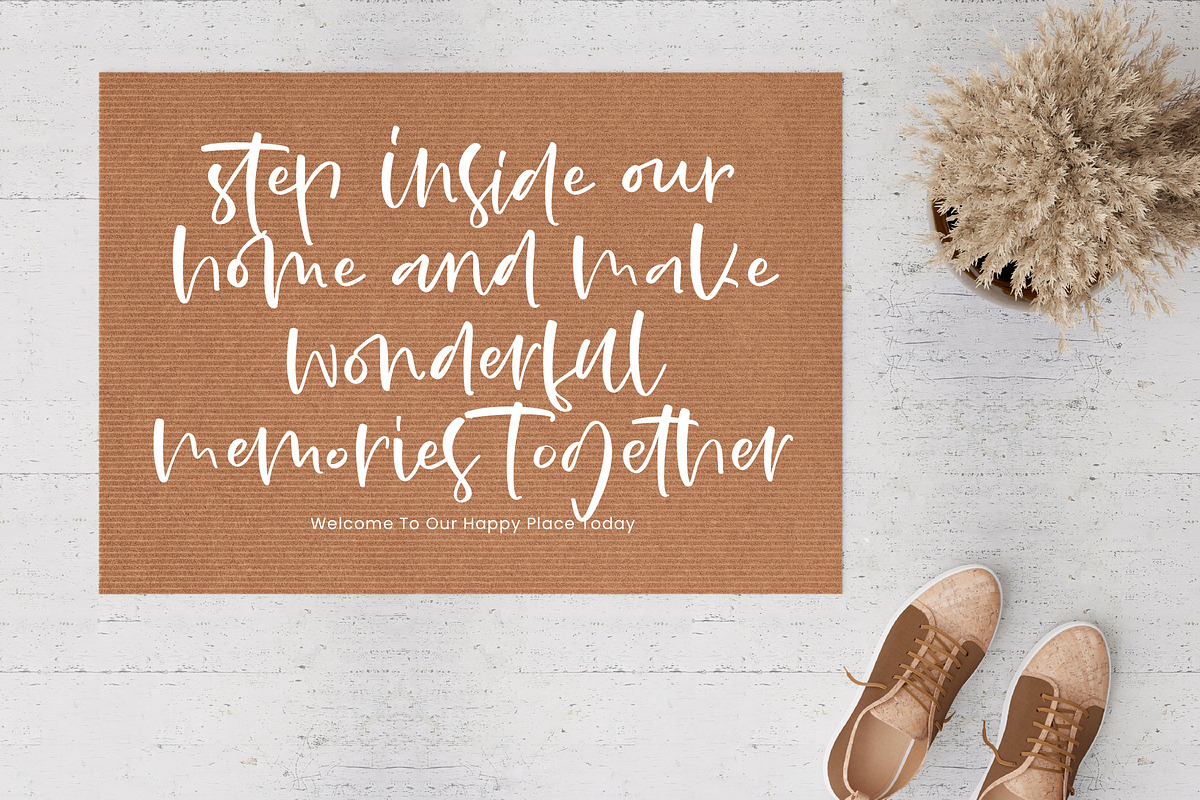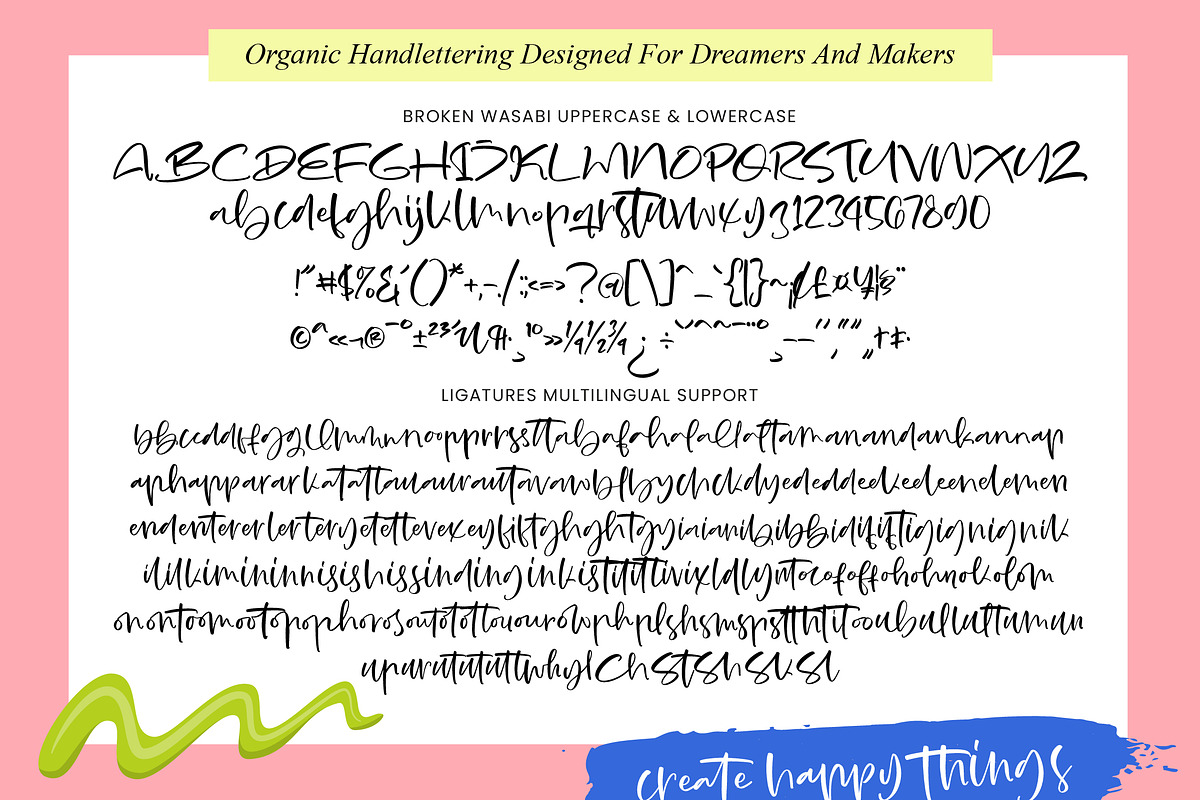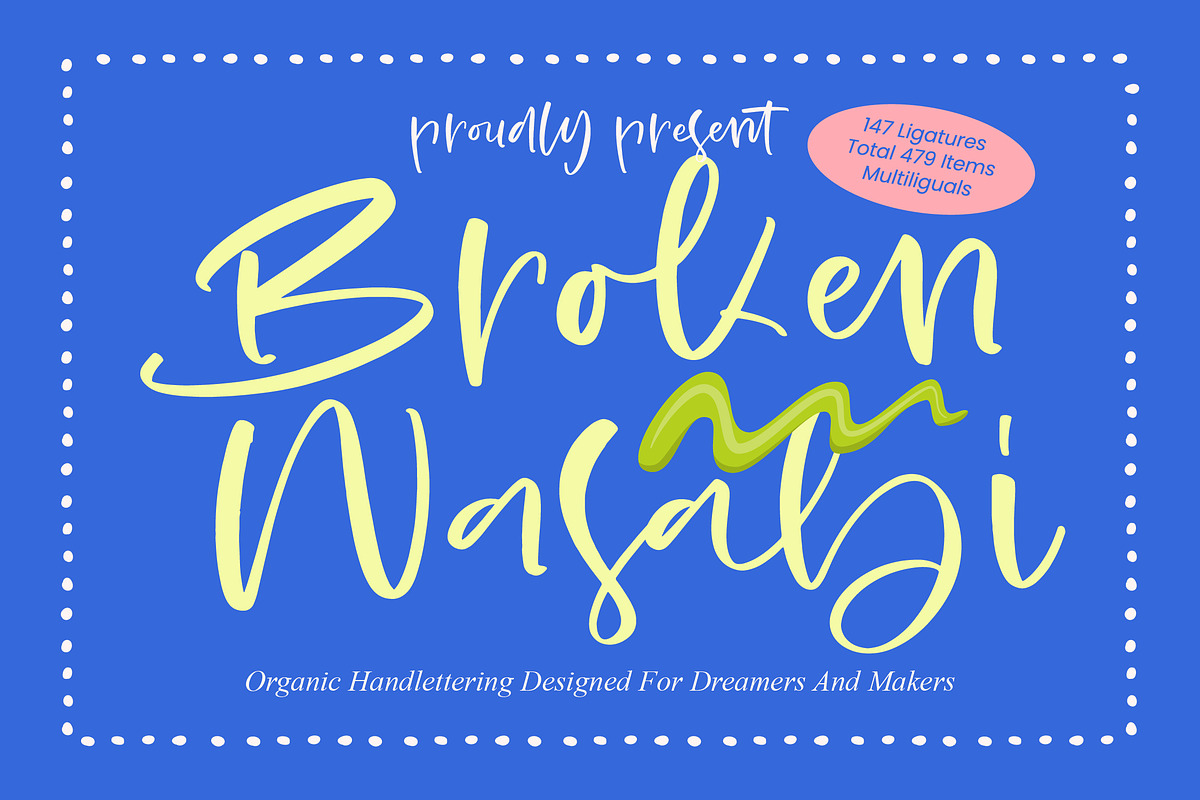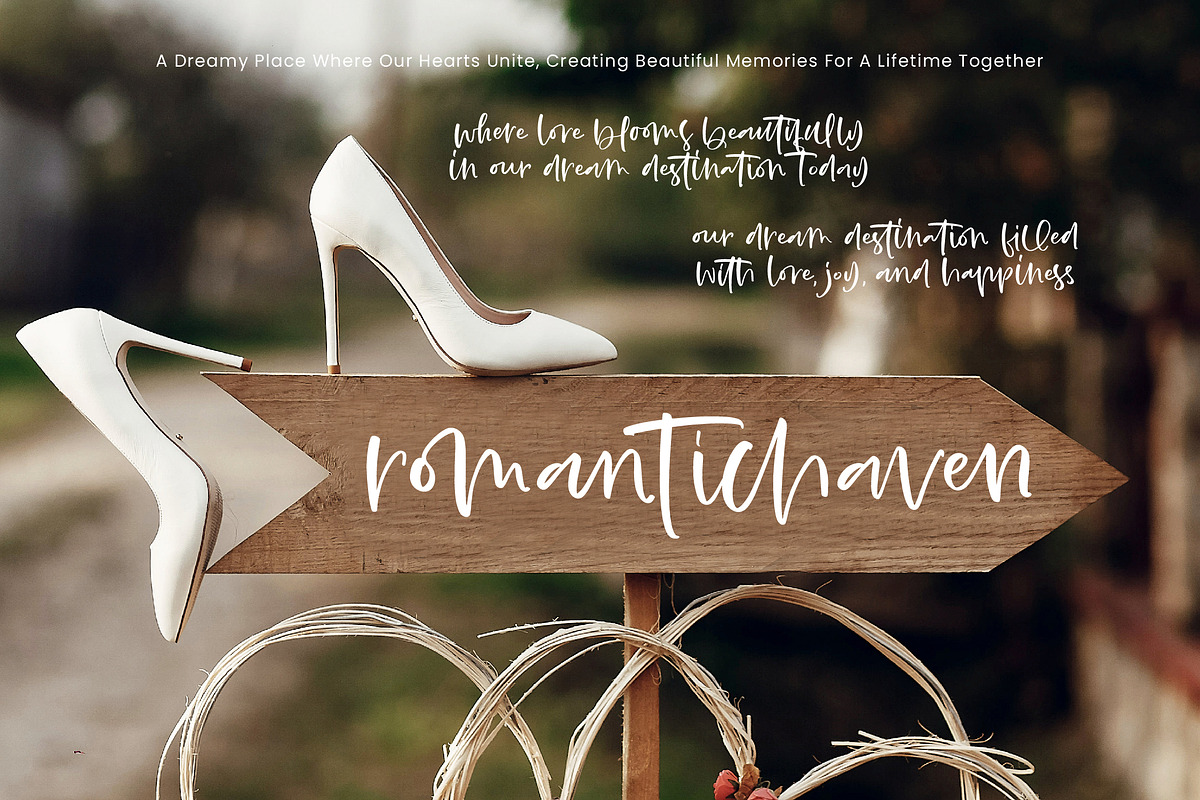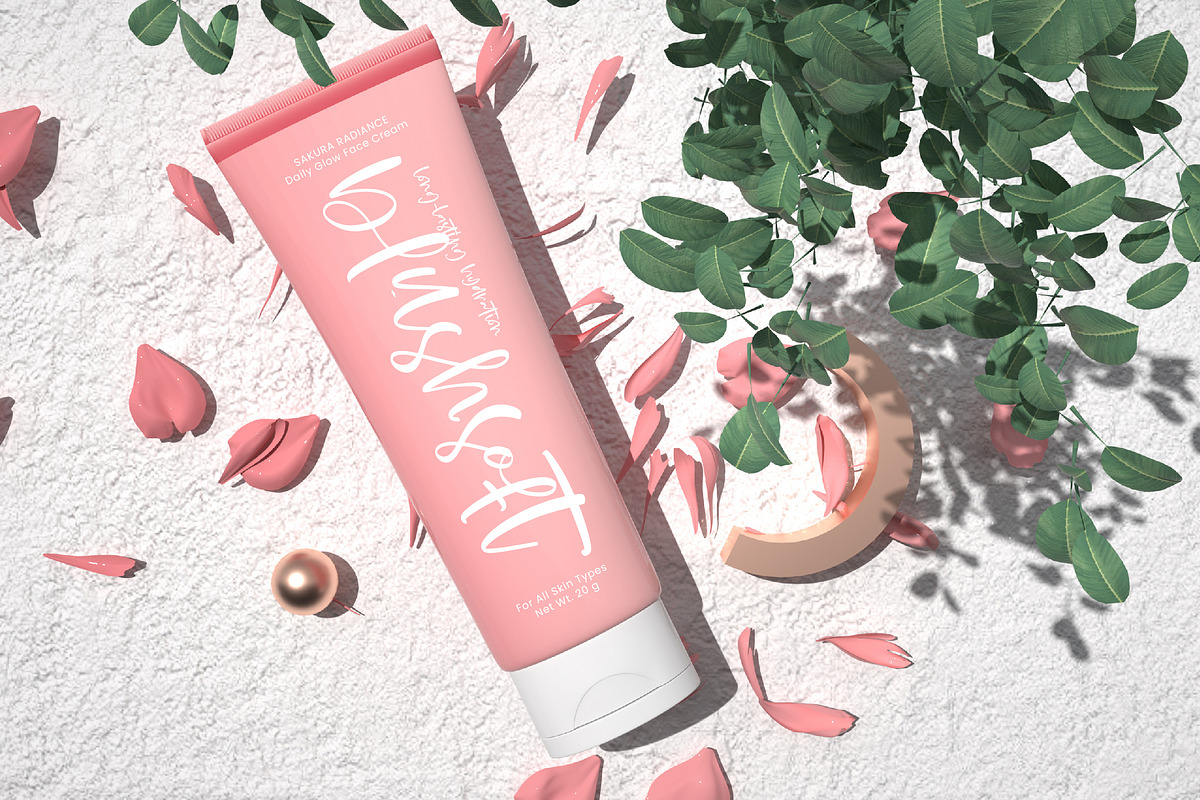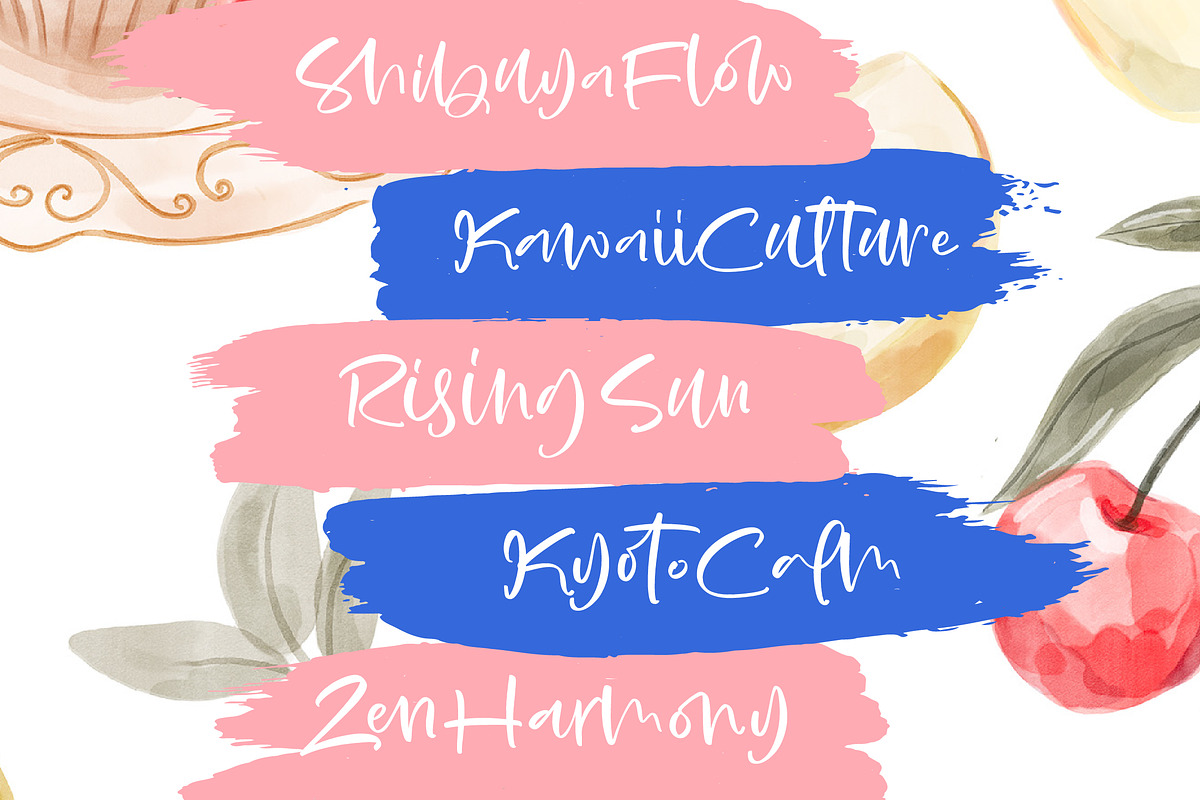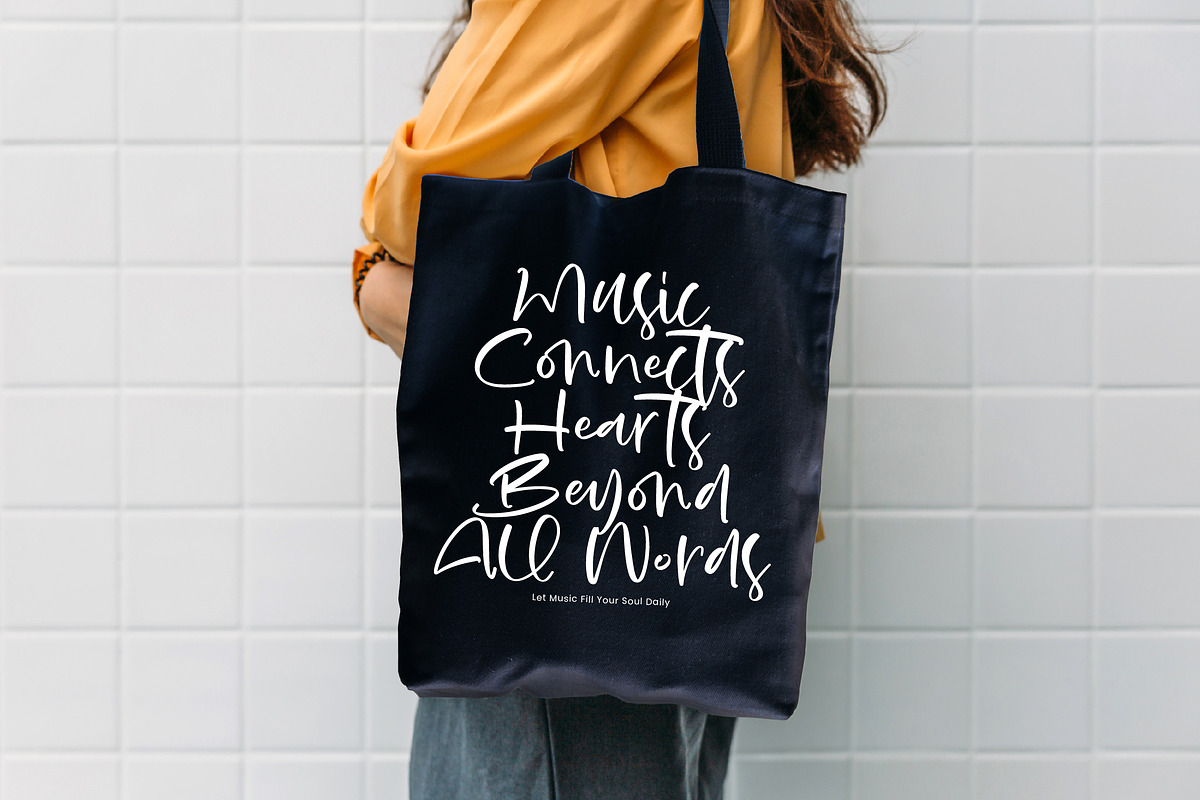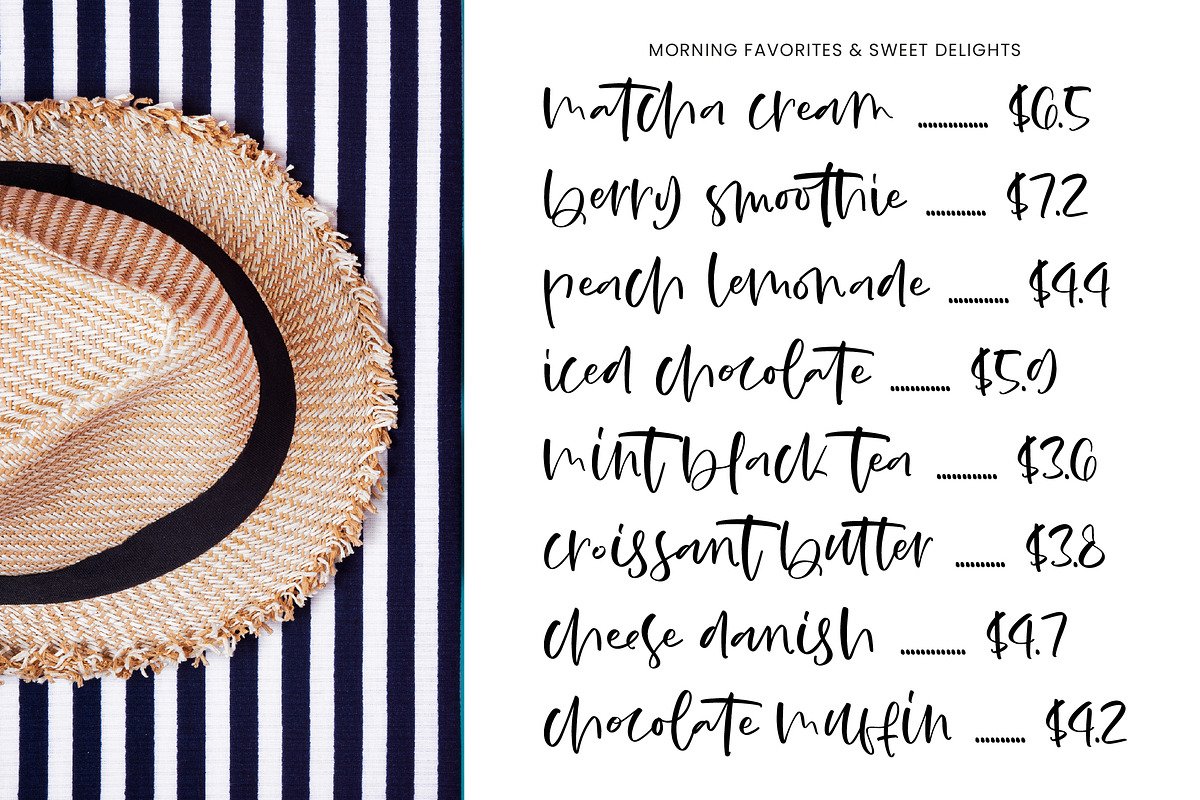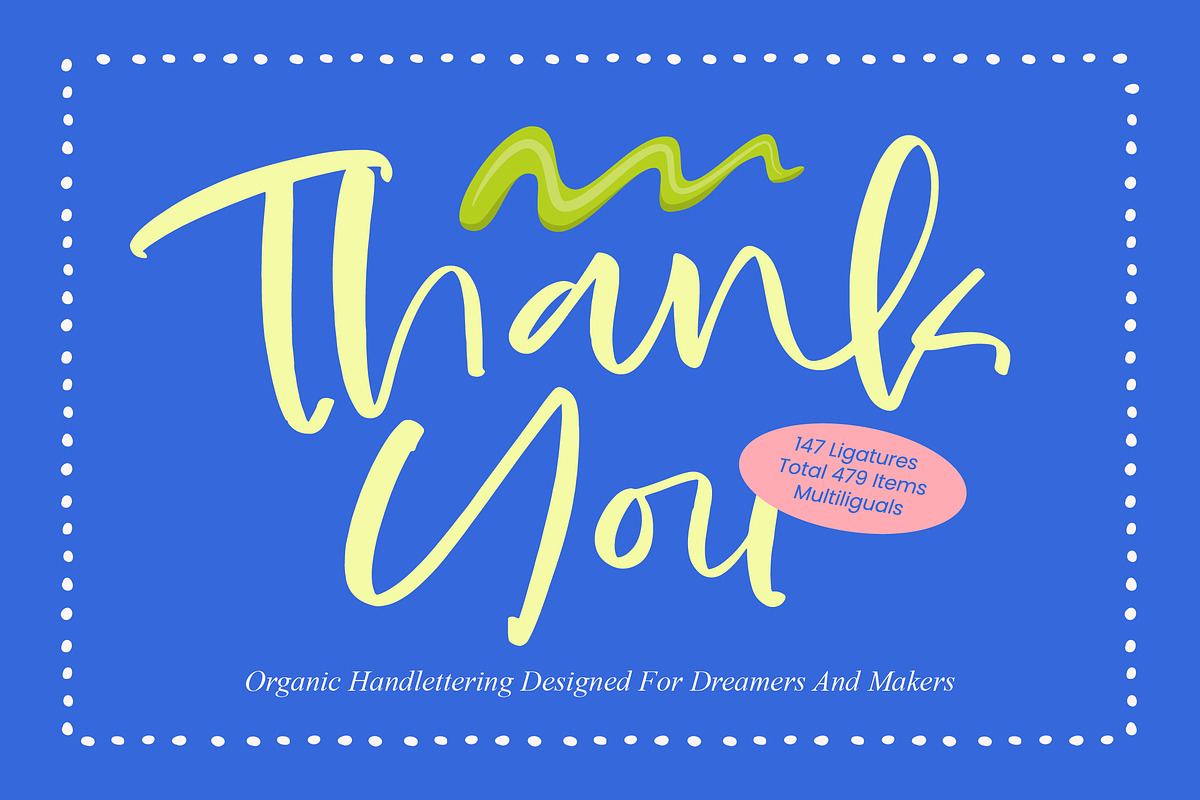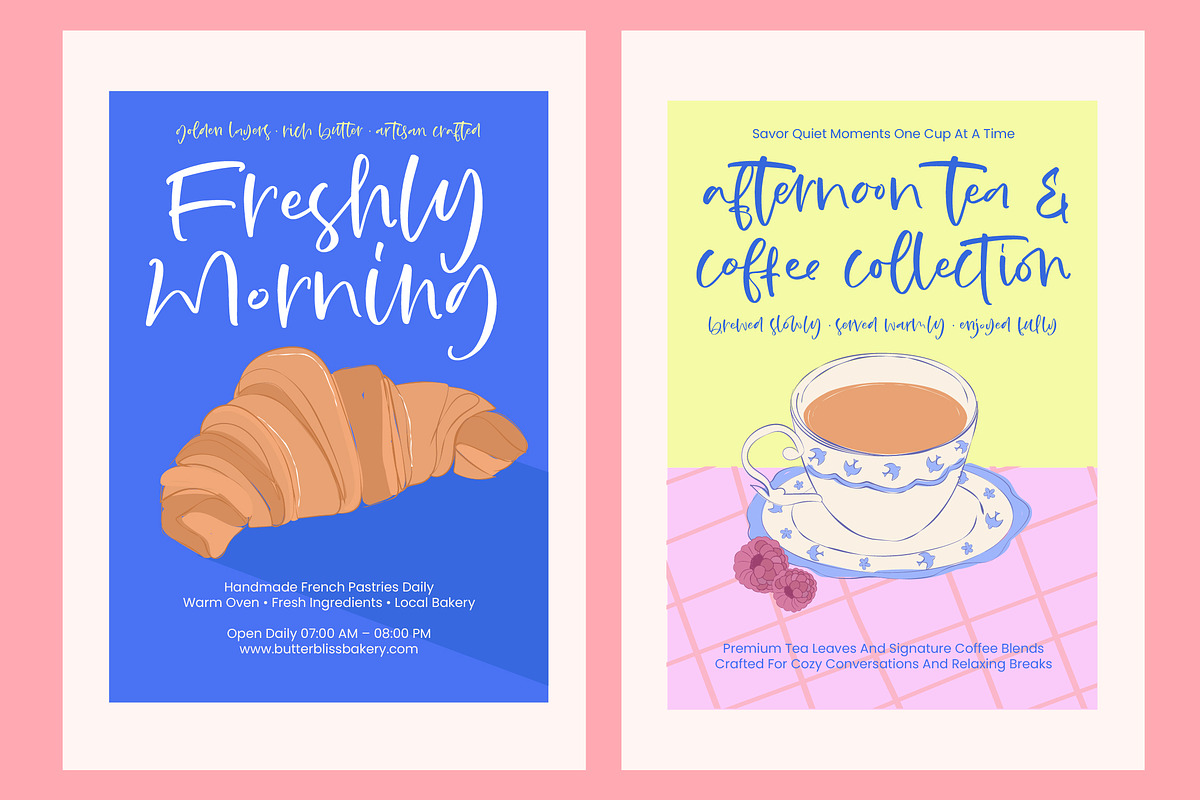
Broken Wasabi Organic Handlettering
Broken Wasabi - Organic Handlettering , Experience the raw beauty of authentic craftsmanship with Broken Wasabi - Organic Handlettering, a font designed to bring an organic script feel to every project. This typeface captures the fluid, spontaneous essence of hand-drawn ink, providing an artistic flair that resonates with "dreamers and makers." By balancing human touch with professional polish, Broken Wasabi - Organic Handlettering ensures your designs stand out with a unique personality and effortless charm.
Global reach meets artisanal design through a robust technical foundation that caters to a diverse audience. With its extensive multilingual support, Broken Wasabi - Organic Handlettering adapts seamlessly across global markets, making it incredibly versatile for international projects. Featuring a staggering 147 ligatures and a total of 479 items, it provides the flexibility needed to create natural, flowing text that looks custom-made for any language or region.
Elevate your brand presence across a wide array of ideal applications ranging from luxury branding to innovative packaging design. This font is perfectly suited for editorial projects, social media marketing, and merchandise design where an authentic aesthetic is paramount. Whether you are crafting a boutique logo or a large-scale advertising campaign, Broken Wasabi - Organic Handlettering delivers a high-impact visual that commands attention while remaining approachable.
Empower your creative vision with a premium typography solution that bridges the gap between digital precision and handcrafted warmth. Broken Wasabi - Organic Handlettering is more than just a typeface; it is a versatile design tool optimized for visual storytelling. For creative professionals seeking to inject raw energy and sophisticated style into their work, Broken Wasabi - Organic Handlettering stands as the ultimate choice for high-quality, commercially-focused design.